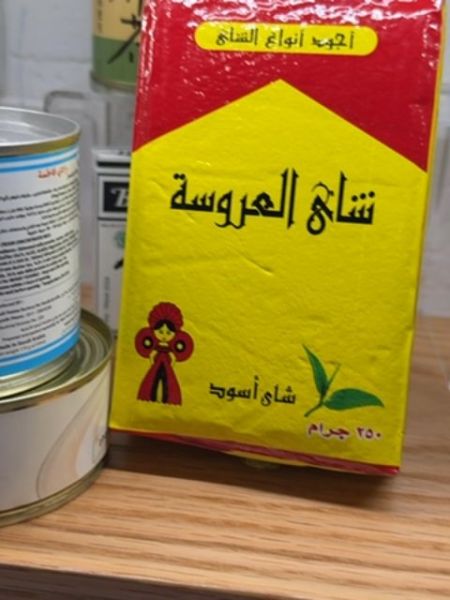
شاي العروسة
A popular brand of black tea used for making traditional teas and hot beverages.
Egypt
The typography on the packaging uses a bold Arabic script that stands out against the bright background. The font style is traditional yet clear, ensuring both cultural authenticity and readability.
The packaging features a bright yellow and red color scheme, making it eye-catching and vibrant. It includes an illustration of a woman in traditional attire and a green tea leaf, emphasizing the product's roots and natural ingredients.